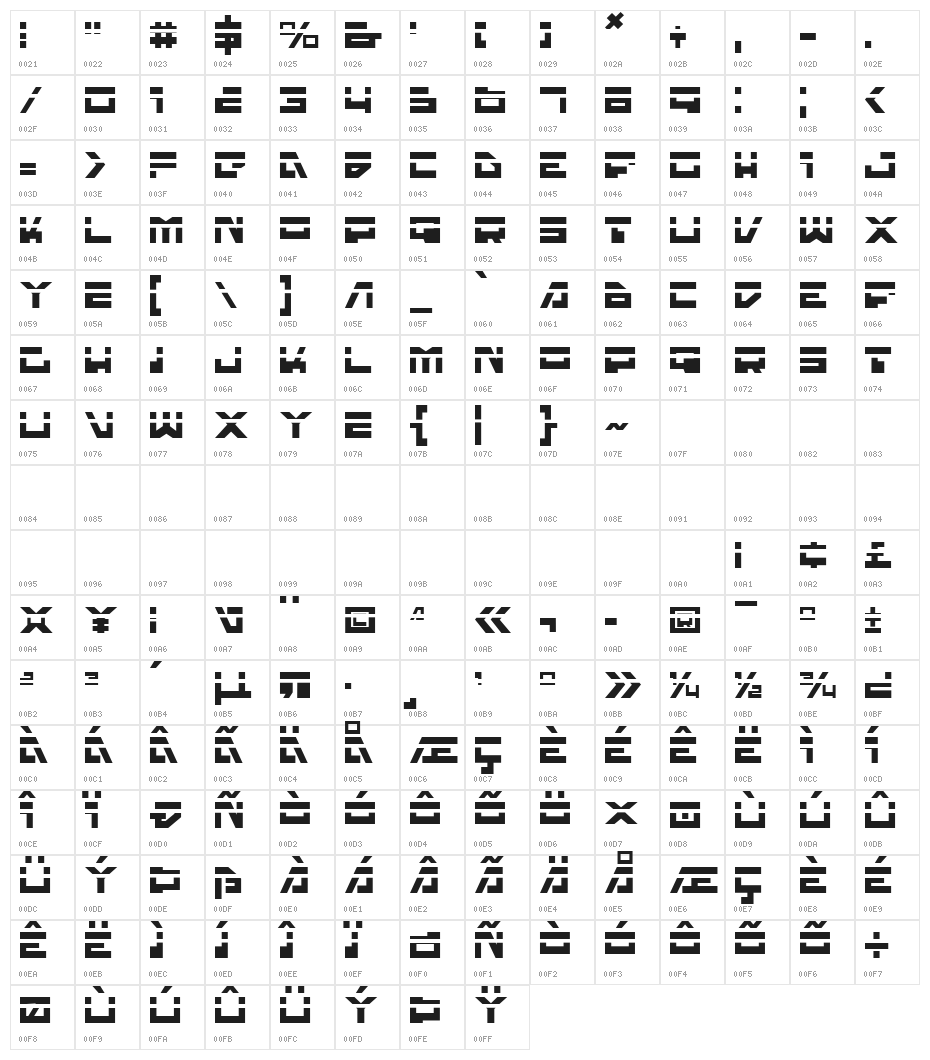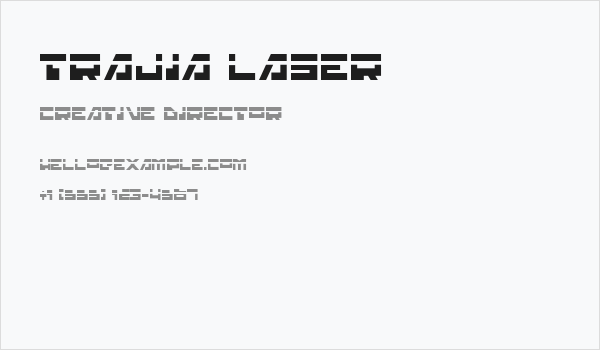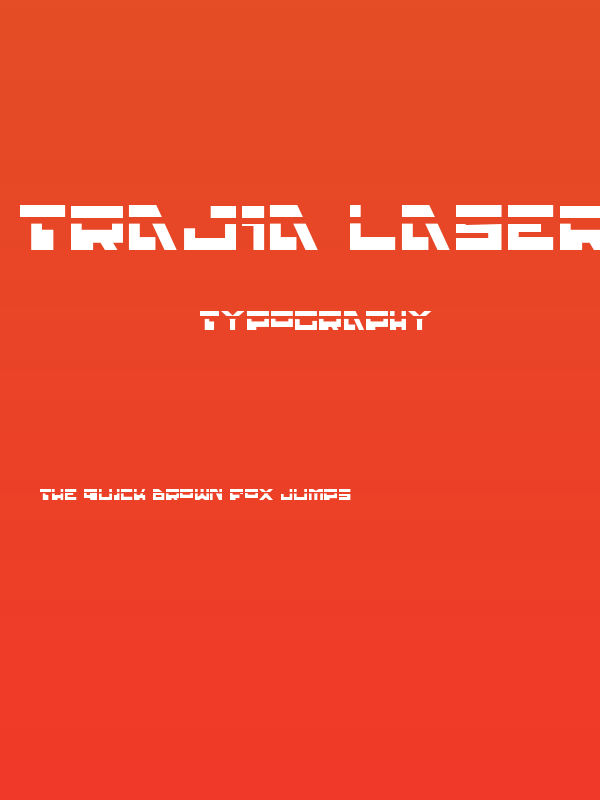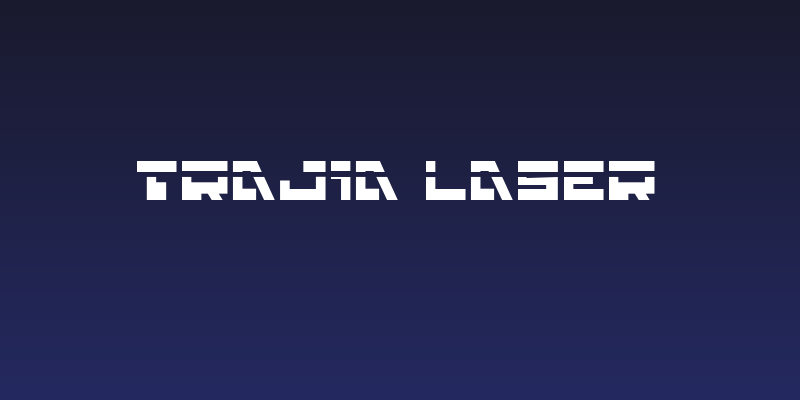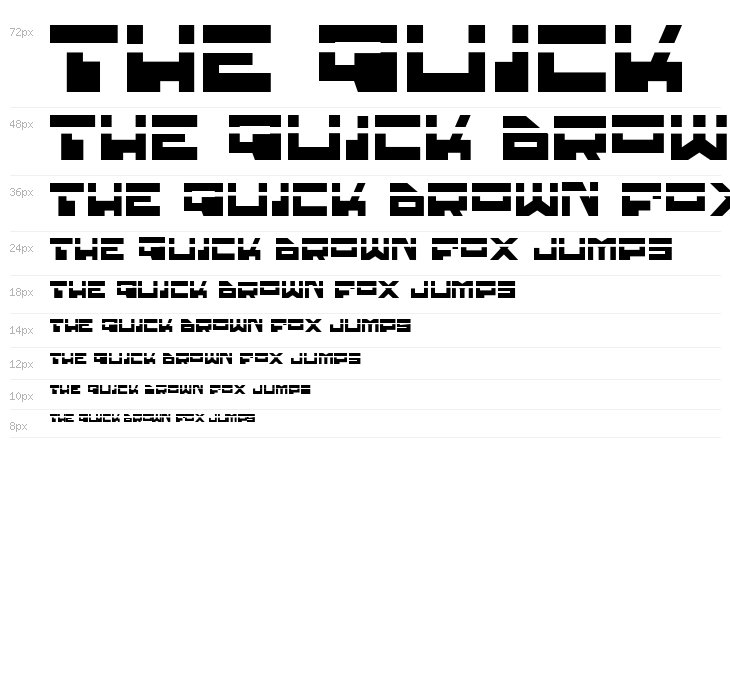
Trajia Laser Font
Trajia Laser Description
This font features a bold, futuristic design with a distinct geometric structure. The characters are composed of sharp angles and straight lines, creating a digital, high-tech appearance. The uppercase and lowercase letters share a similar style, maintaining consistency across the alphabet. Numbers and special characters are designed to match the overall aesthetic, making the font suitable for modern and tech-oriented projects. The solid, block-like forms of the letters ensure high visibility and impact.
| Proposed Projects | Ideal for technology branding, sci-fi themed designs, video game interfaces, and modern posters. |